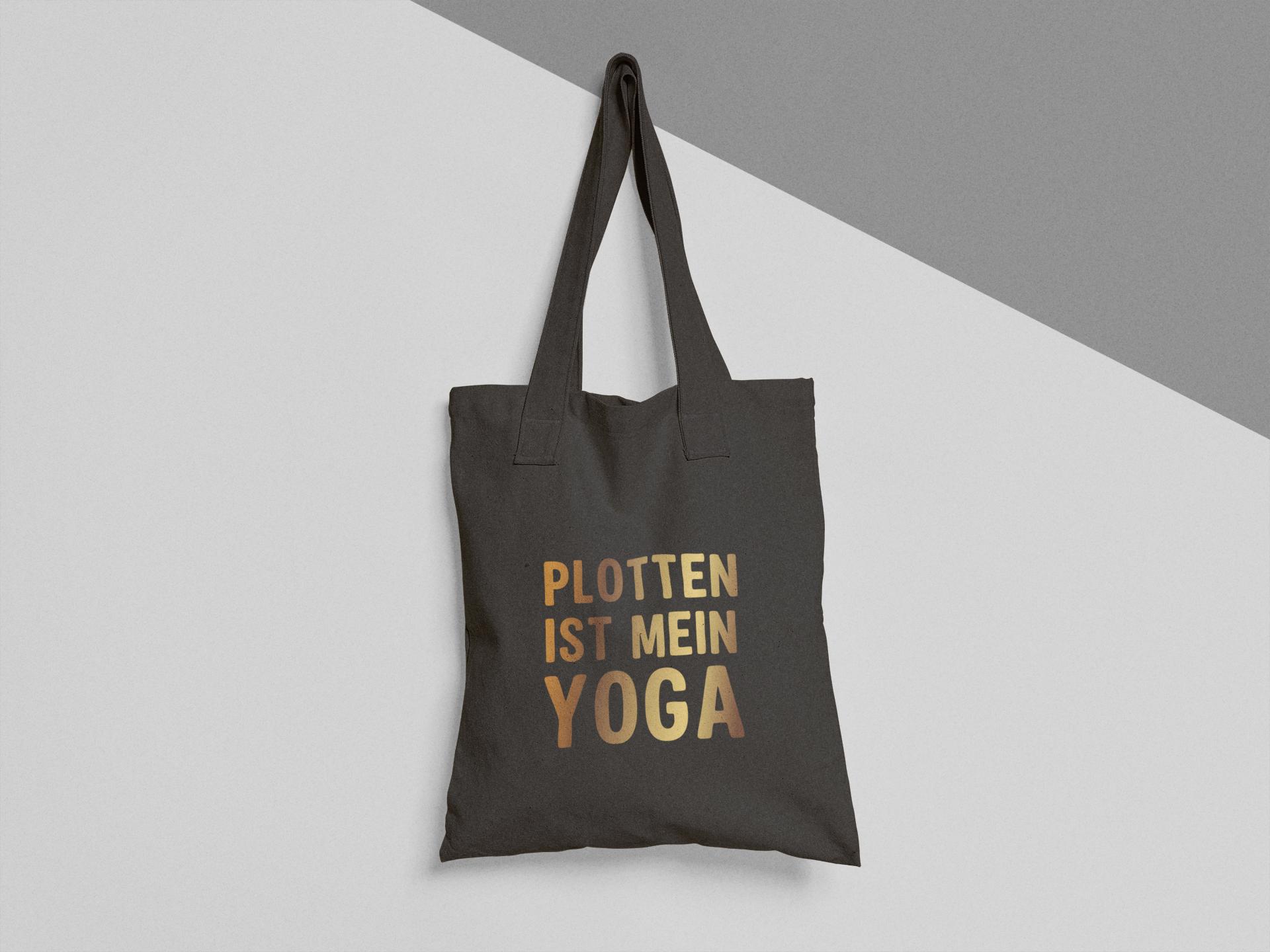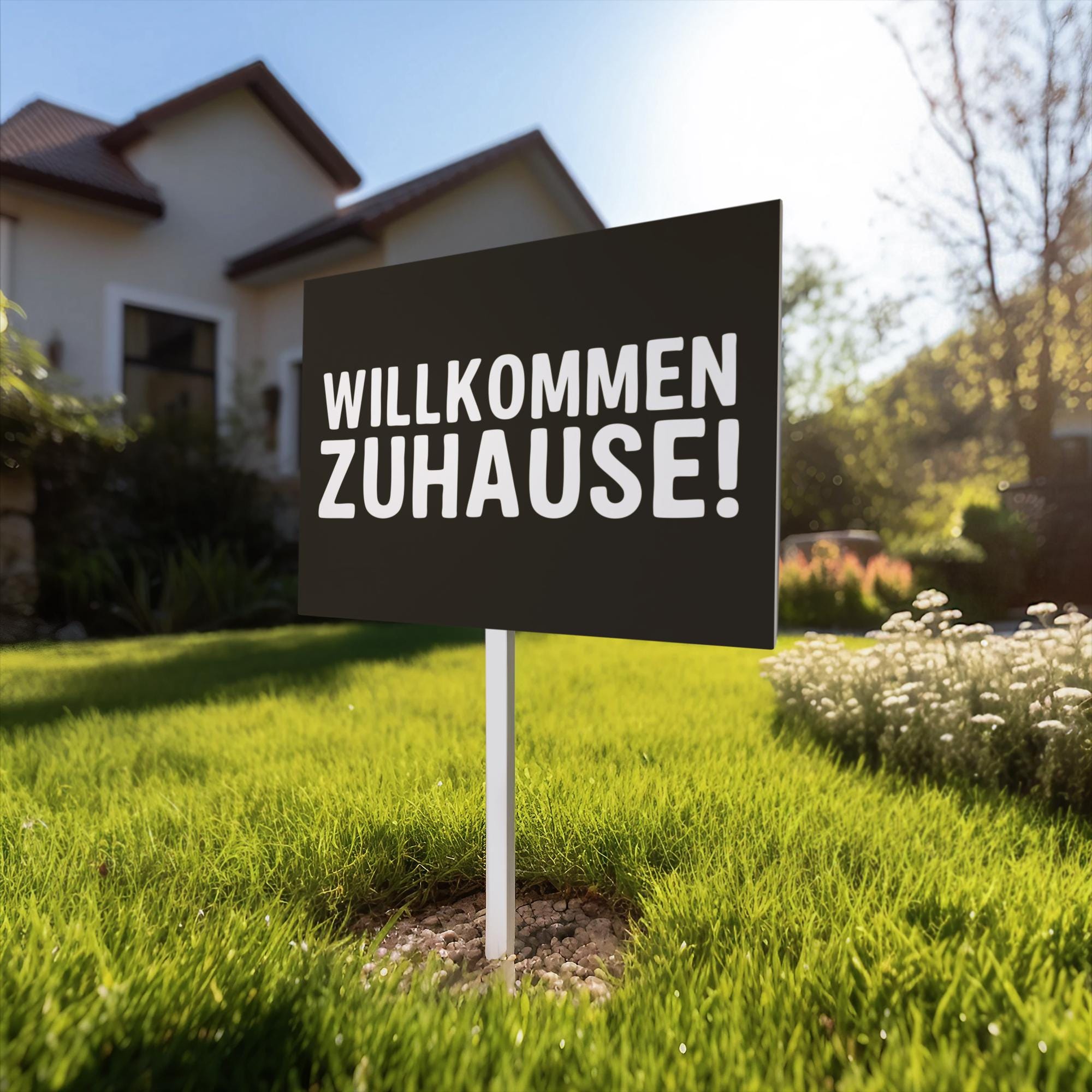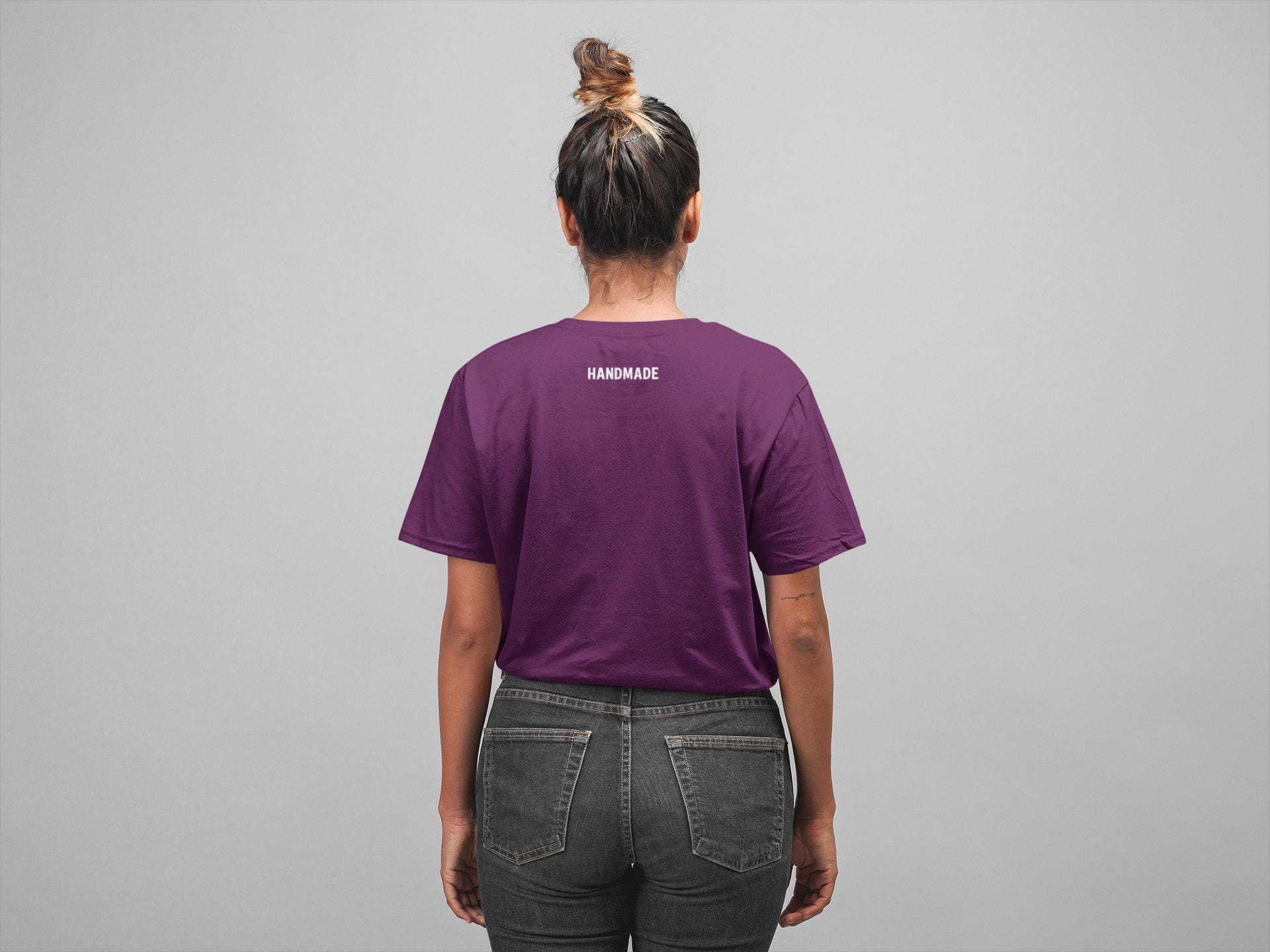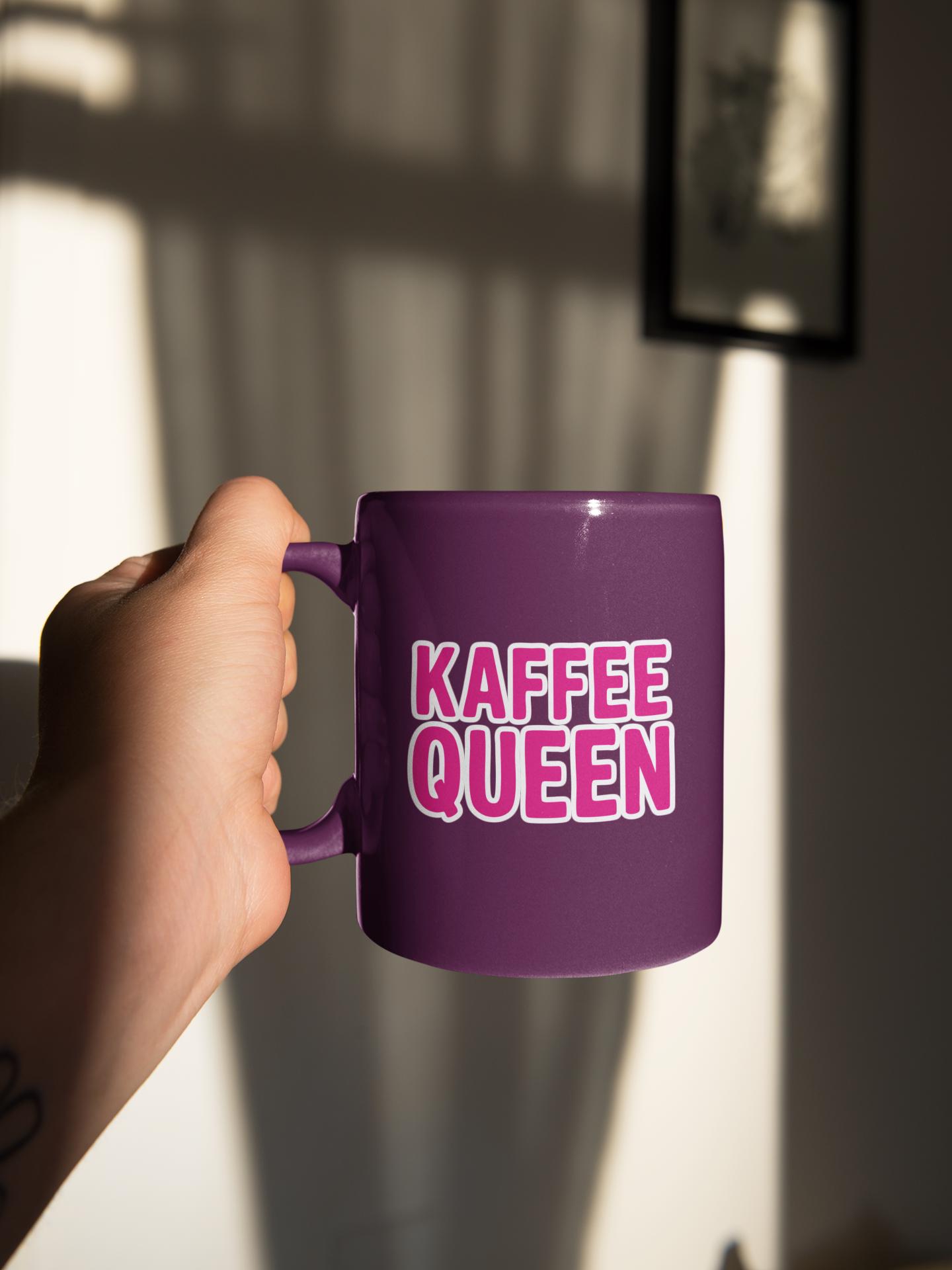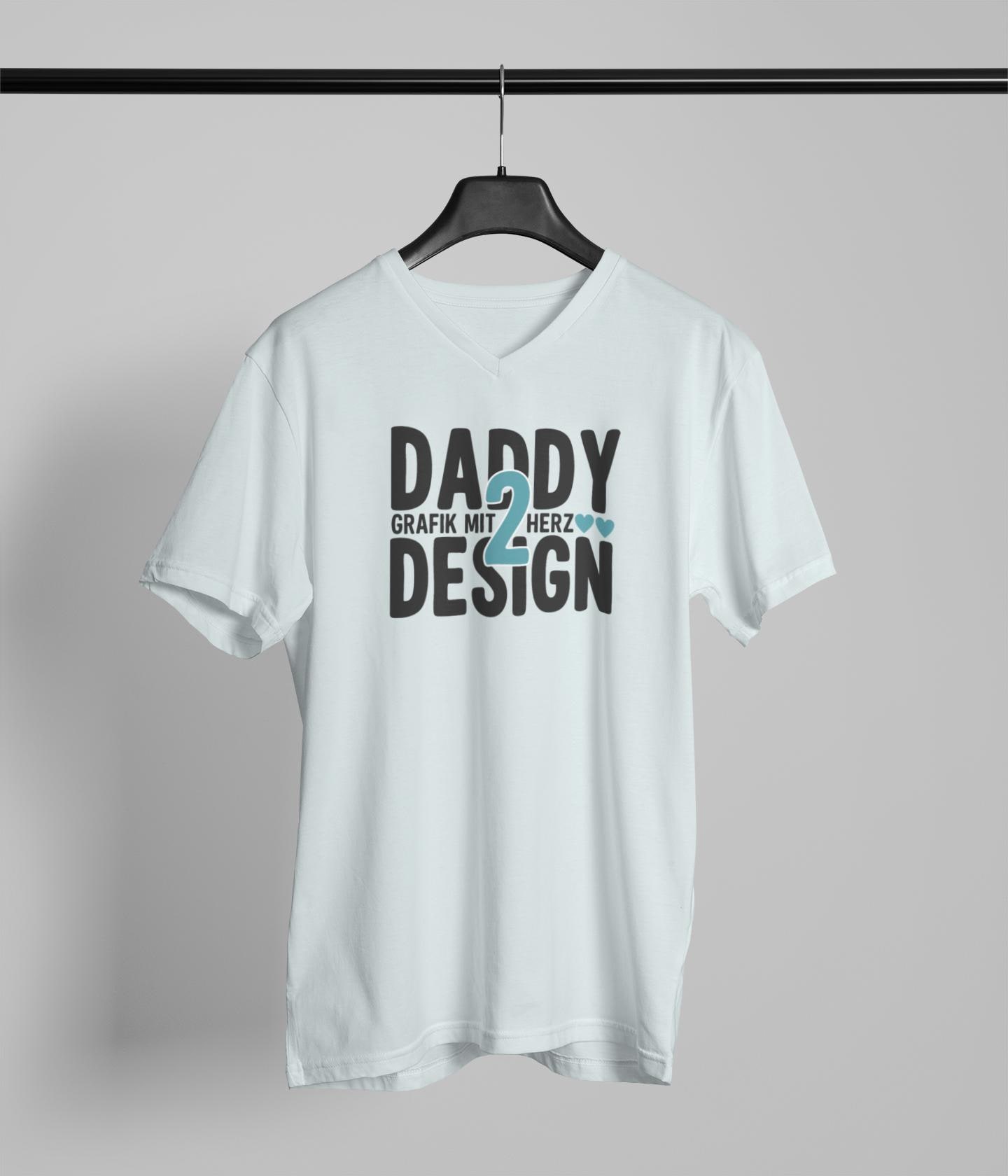
Daddy2Font – Bold. Narrow. Handmade. Plotter friendly.
I built it because I couldn't find it anywhere:
→ A font that
✔ looks handmade,
✔ is super readable,
✔ fat, but not greasy,
✔ narrow, but not squashed
and above all: really easy to plot!
🎯 Includes ALL the characters you need:
Capital letters A–Z
Umlauts: Ä Ö Ü
Numbers: 0–9
Special characters: ! ? : – . ,